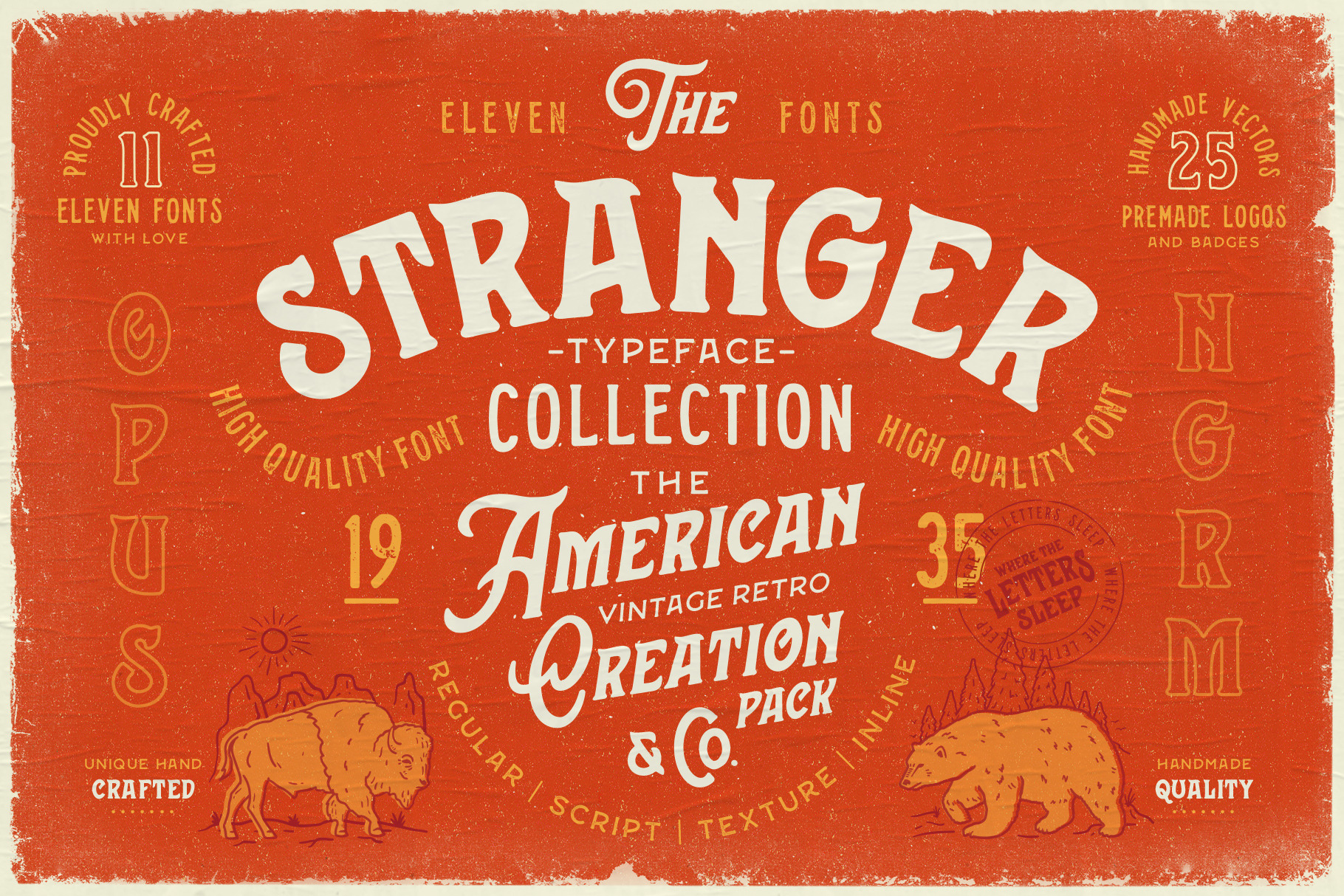
Stranger Font Collection + Extras
STRANGER Font Collection was born like a reversion from "Bohemian Alchemist" but more solid and with more fonts to combine. All the collection was inspired by old vintage denim labels, old jeans ads, the old west and the apothecary elements. This font is new and old. A font with personality. Ideal for use in logos, flyers, invitations, labels, clothes and more.
Stranger is being used by talented designers around the world, like Real Fun Wow! and the official merchandise of Stranger Things 4.
A very beautiful and versatile font collection - it's well worth the purchase! The package captures that rugged "wild west" feel of the old days with a modern twist. It's perfectly designed and balanced. I found that the designer is also incredibly patient and helpful with queries and requests. I highly recommend purchasing from his store as any font is a dream edition to your branding identity.